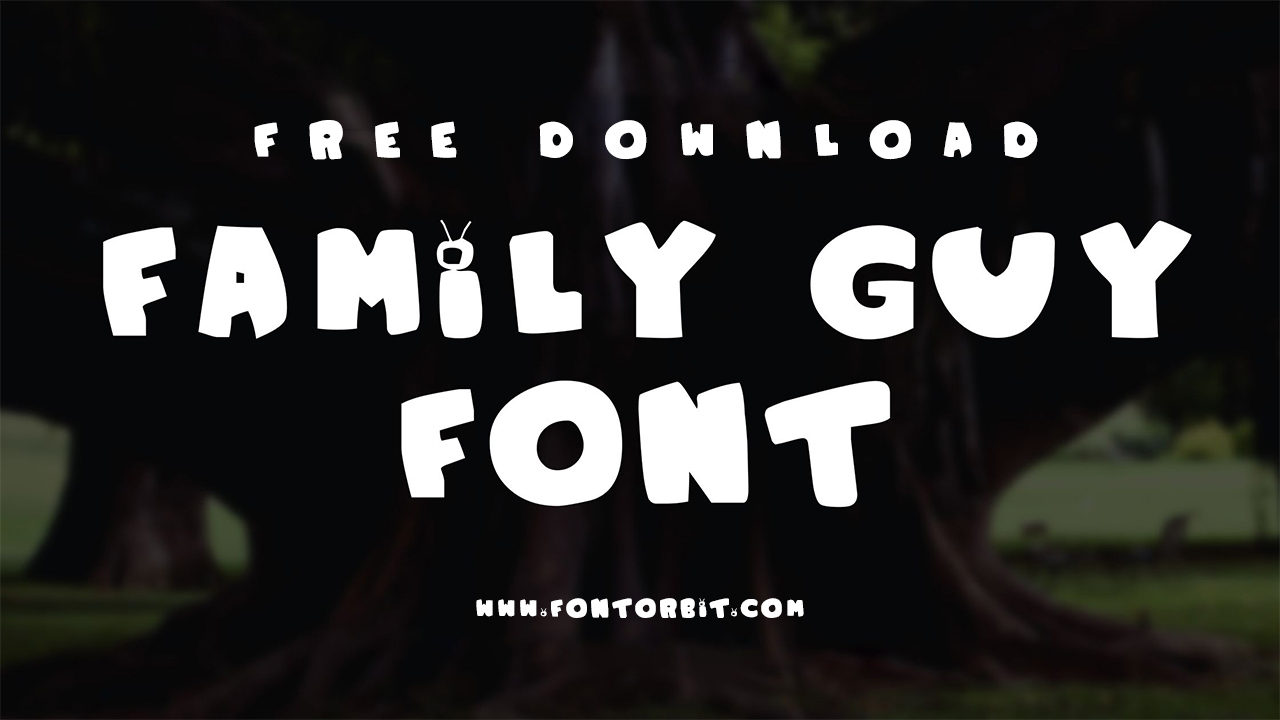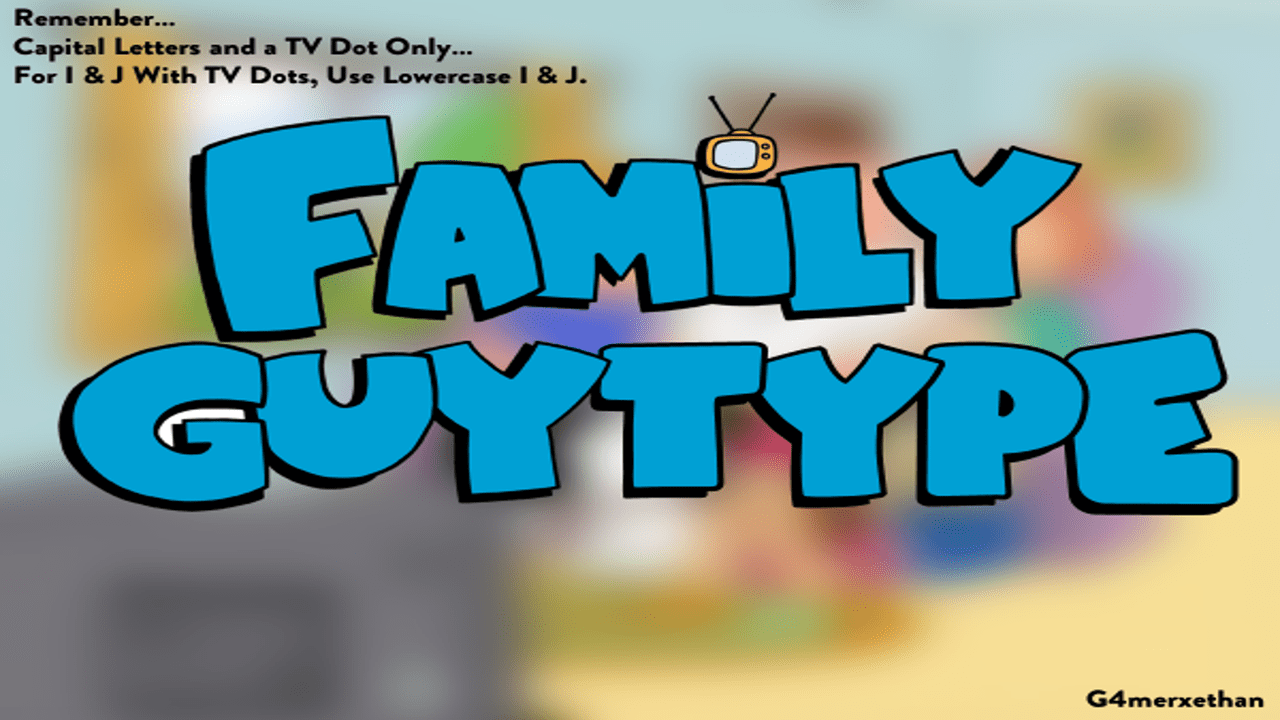
Meet Family Guy Font, a playful typeface inspired by the iconic title lettering of the American animated sitcom “Family Guy.” This font captures the show’s irreverent humor with its quirky and distinctive design.
The Family Guy Font closely mimics the title lettering seen in the popular TV show. It falls under the category of display typefaces, known for their bold and attention-grabbing appearance. Specifically, it features the Family Guy Regular weight and includes uppercase letters and a few punctuation marks.
Family Guy Font is often popular in designs that aim to capture the playful and irreverent spirit of the show. It can be seen in fan art, promotional materials, and merchandise, reflecting the quirky and humorous nature of the series. Created to echo the fun and whimsical essence of the TV series, Family Guy Font is perfect for adding a touch of animated charm to your projects. Jobanbal designed the Family Guy Font.
Family Guy Font is a fun and quirky typeface that brings a touch of animated charm to any design. Ideal for entertainment graphics, merchandise, event invitations, and fan art, this font is perfect for projects that reflect the whimsical nature of the beloved TV series. Whether you’re celebrating the show or adding a playful element to your designs, Family Guy Font is an excellent choice.
No, the Family Guy Font is not hand-drawn; it is a digital typeface designed to mimic the show’s title lettering.
Customization options are limited to basic adjustments like size, color, and spacing, as the font primarily features uppercase letters and a few punctuation marks.
4.How Can You Identify The Family Guy Font From Other Similar Fonts?
The Family Guy Font is identifiable by its bold, quirky style and uppercase letters that closely resemble the TV show’s title lettering, with a distinctive playful and comic appearance.
5.What Are The Characteristics Of Family Guy Font?
Family Guy Font features a quirky, playful design inspired by the show’s title lettering. It includes uppercase letters and some punctuation marks, perfect for capturing the show’s humor.